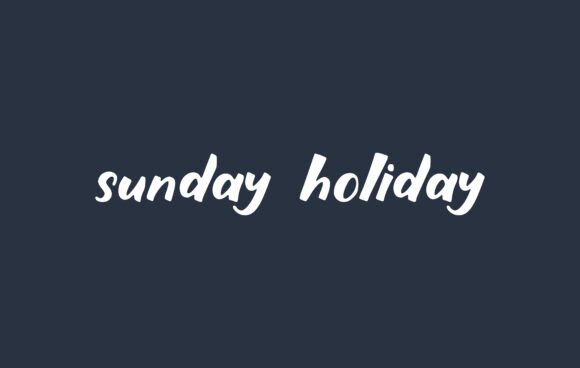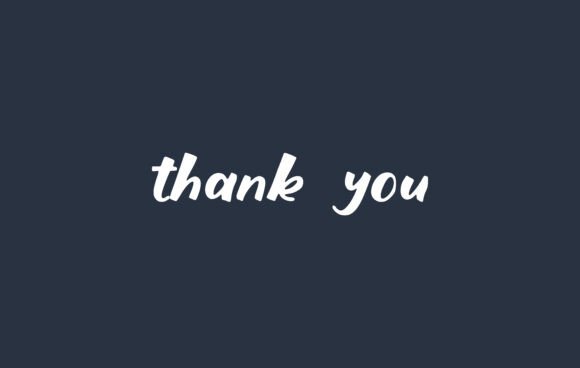
Introduction to Ivey Font
Have you ever found yourself scribbling notes in a notebook, trying to capture the essence of a brilliant idea that just popped into your mind? For designers, those moments are the ones that spark creativity and drive innovation. And when it comes to bringing those ideas to life, having the right design resources can make all the difference.
Enter the Ivey Font, a stunning handwritten font that adds a touch of romance to any design project. With its high-quality, authentic feel, this font is perfect for designers who want to create unique and captivating visuals. Whether you’re working on a magazine headline, social media post, or wedding invitation, the Ivey Font is an excellent choice for adding a personal touch.
Key Features of Ivey Font
- Ivey Font is a versatile design resource, suitable for a wide range of creative projects, from logos to typography-based designs.
- Its high-resolution design ensures crisp and clear typography, making it perfect for designers who require a premium look.
Honest Review: Ivey Font
I recently stumbled upon the Ivey Font, and I must say it’s a great addition to any designer’s toolkit. As a designer, I’m always on the lookout for high-quality fonts that can elevate my creative projects.
One of the things that stood out to me about the Ivey Font is its elegant and modern aesthetic. It’s perfect for projects that require a touch of sophistication and class. ✨ I also appreciate that it’s available for free download, making it a fantastic resource for designers of all levels.
While the Ivey Font is an excellent resource, there are a few limitations to be aware of:
- No bold or italic versions available
- May not be suitable for extremely large or small font sizes
Overall, I’m impressed with the Ivey Font and would recommend it to anyone looking for a high-quality, modern font for their creative project. ⚠️ Just be aware of the limitations mentioned above.
Tips for Getting the Most Out of Ivey Font
Use Ivey Font to create designs with a transparent background for a sleek and modern look. Experiment with different font sizes and colors to add depth and interest to your designs. Ivey Font is a versatile design resource that can be used for a wide range of creative projects.
Ivey Font is commonly used for branding, marketing materials, and digital designs. It’s perfect for creating high-quality designs with a transparent background, making it ideal for use in social media graphics, presentations, and websites.